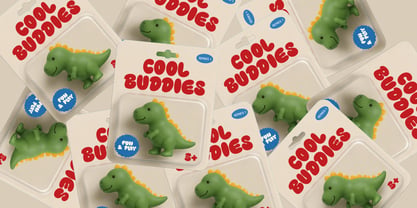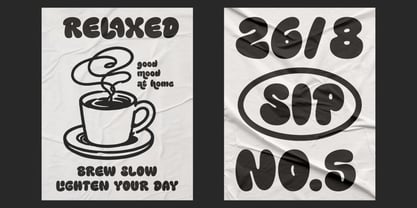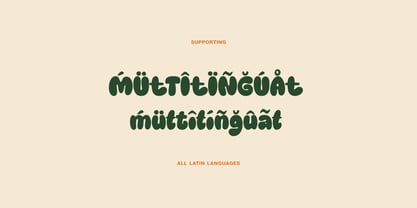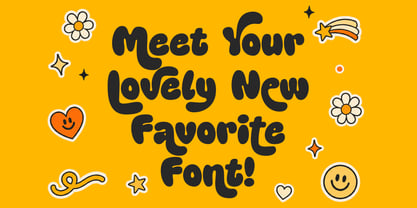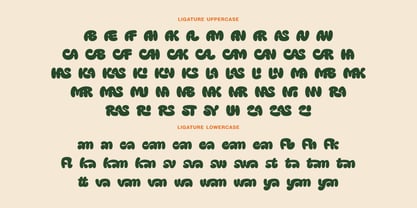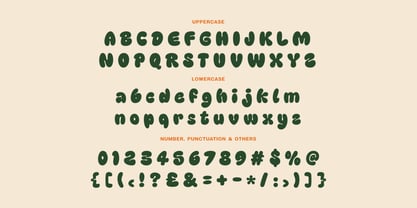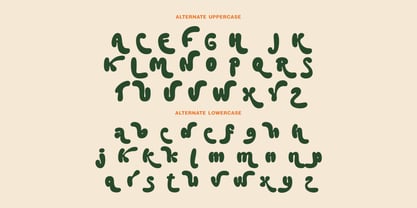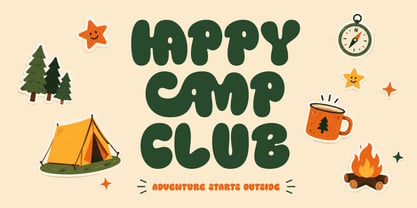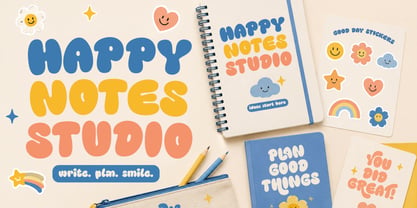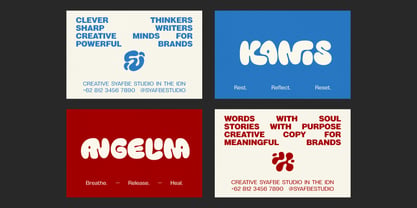
Zaraskids
by Syafbe
The Zaraskids Font Family was designed by Syafwan Mus and published by Syafbe. Zaraskids contains 1 styles. More about this family
Meet Zaraskids, a bold and playful display font designed to bring instant fun, charm, and personality to every project. With its soft rounded shapes, chunky letterforms, and handcrafted curves, Zaraskids delivers a cheerful retro vibe that stands out effortlessly. Perfect for kids’ branding, packaging, posters, food promotions, stationery, stickers, logos, social media graphics, and any creative design that needs a friendly and eye-catching touch.
Packed with creative possibilities, Zaraskids includes uppercase and lowercase letters, numbers, punctuation, stylish alternates, ligatures, and multilingual Latin support. Mix and match the alternate characters and ligatures to create unique headlines, playful compositions, and memorable branding with a natural handmade feel. Whether you're creating something cute, fun, or boldly expressive, Zaraskids makes every word feel more lively, distinctive, and full of character.
Designers: Syafwan Mus
Foundry: Syafbe